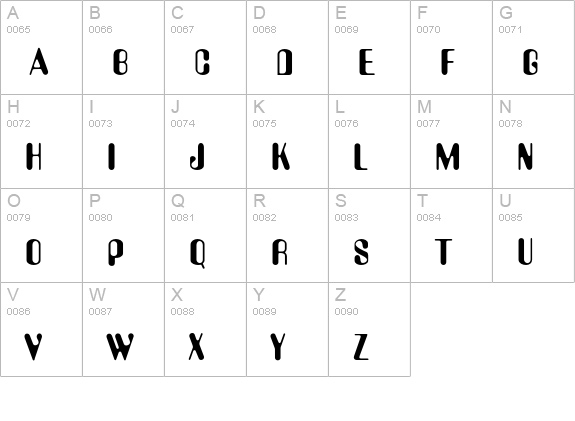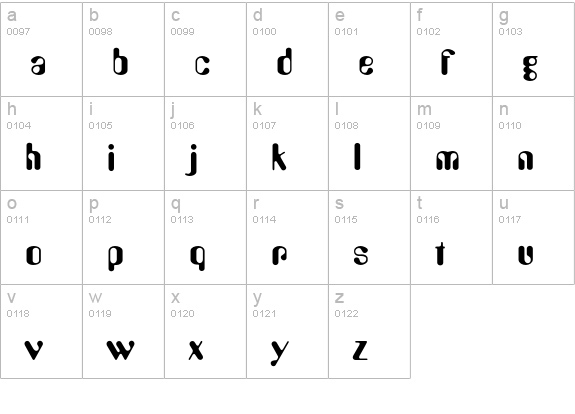
Amelia-Normal Font Details
Amelia-Normal is the standard, neutral variant in the Amelia typeface family \xE2\x80\x94 well suited to general body text, paragraphs, and standard typographic work.
Amelia-Normal font is a versatile and elegant typeface that exudes sophistication and modernity. With its clean lines and classic proportions, this font is perfect for a wide range of design projects, from branding to editorial layouts. The sleek and timeless appearance of Amelia-Normal makes it a go-to choice for designers looking to add a touch of refinement to their work. The best part? Amelia-Normal is available for free download at FontsMarket.com. So whether you're working on a professional project or simply looking to enhance your personal creations, this font is easily accessible and ready to elevate your designs. Don't miss out on the opportunity to add this stylish and versatile typeface to your font library today!